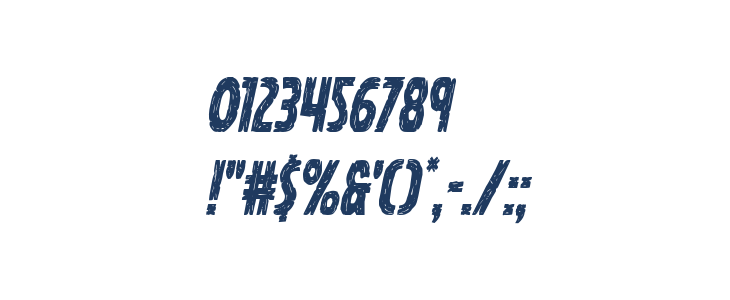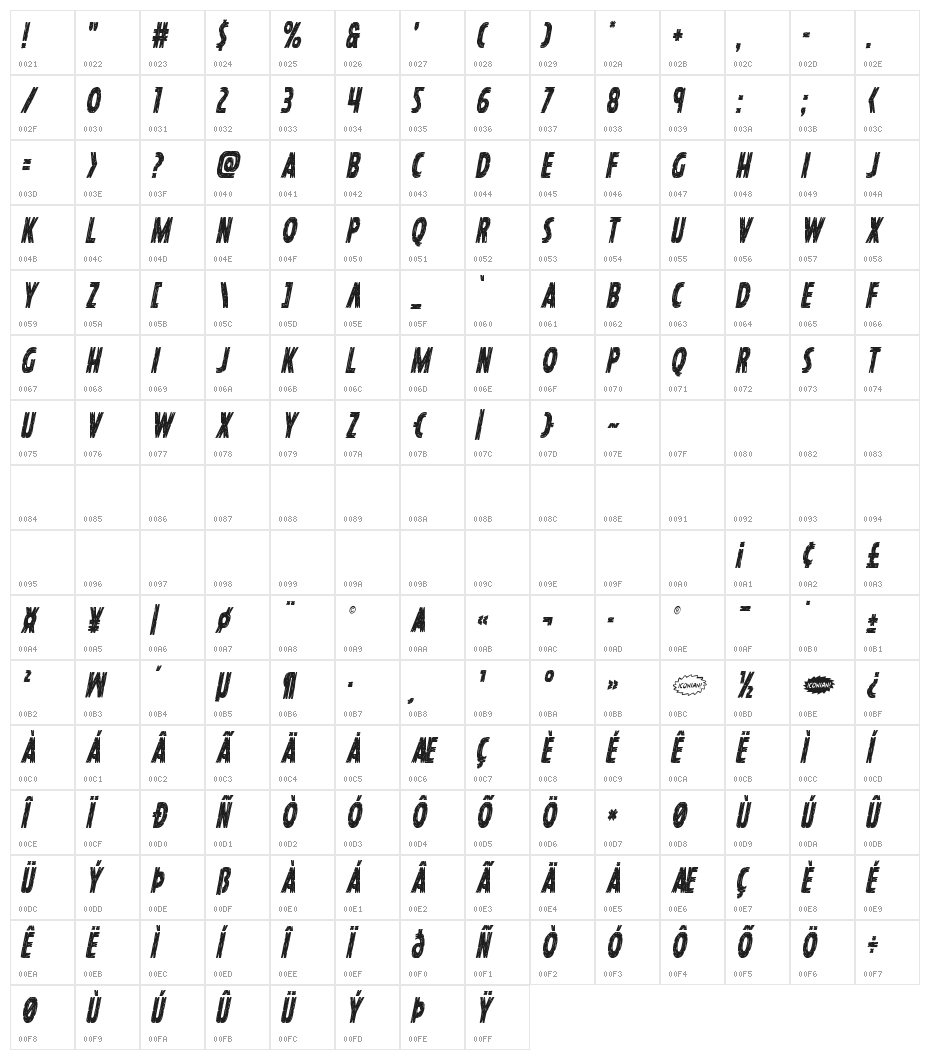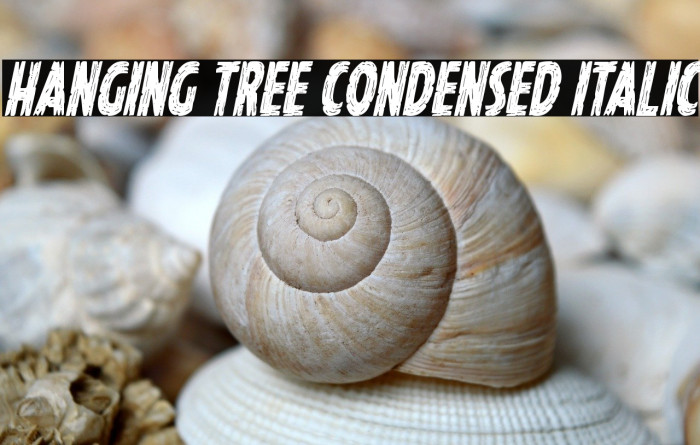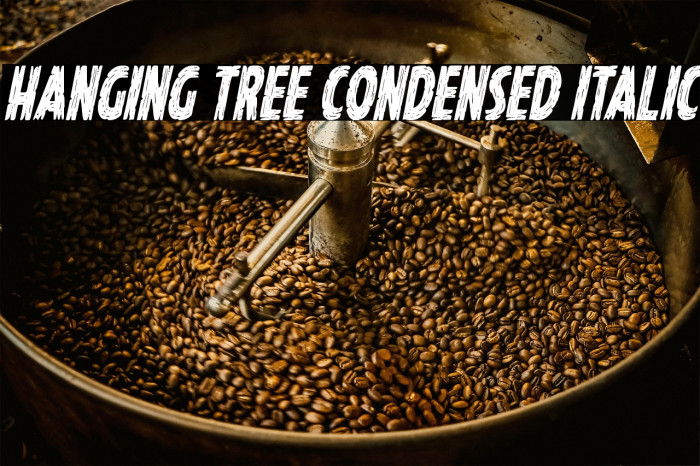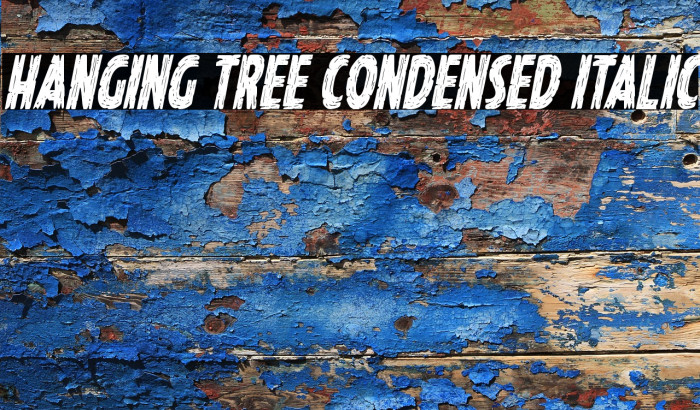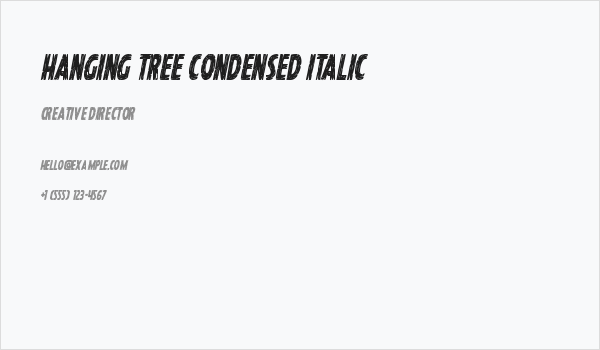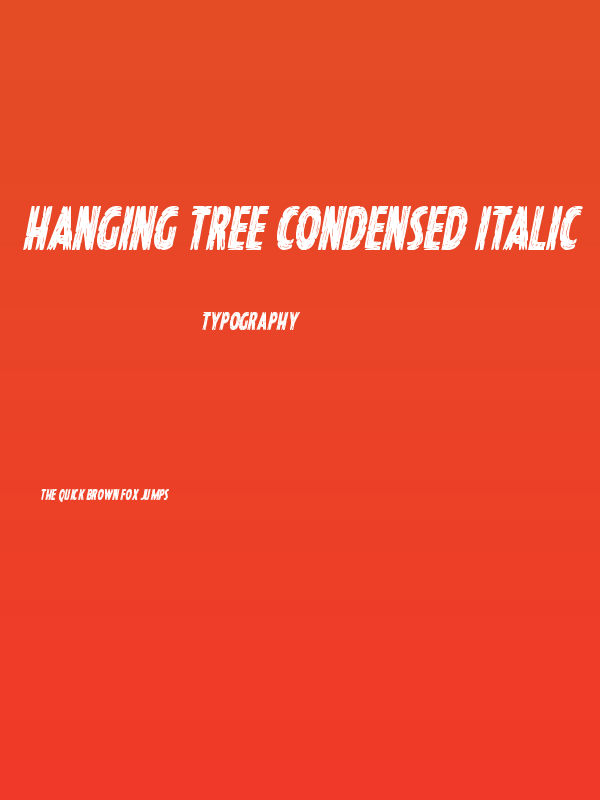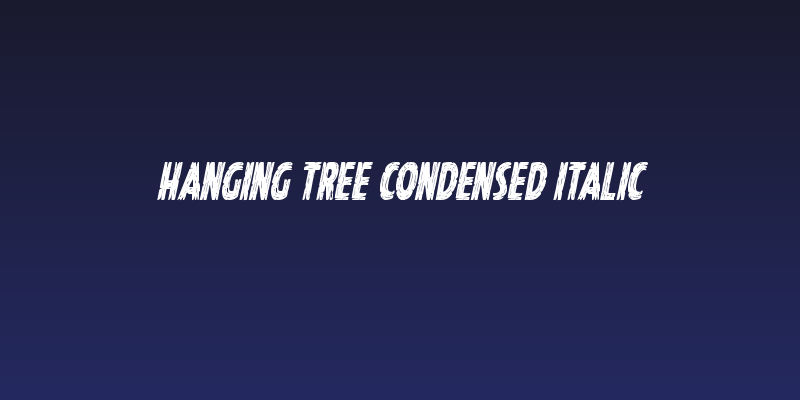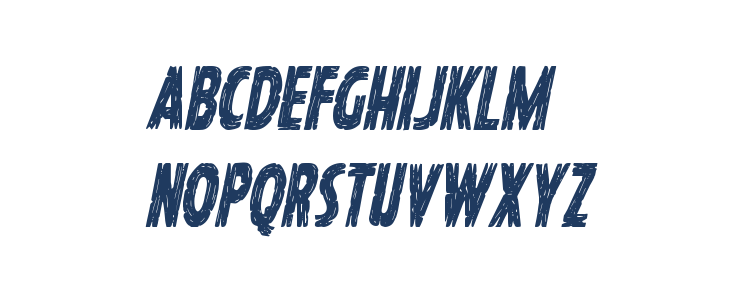
Hanging Tree Condensed Italic Font
Hanging Tree Condensed Italic Description
This font features a bold and dynamic style with a condensed and italicized form. The characters are heavily textured, giving a rough, hand-drawn appearance that adds a sense of urgency and energy. The strokes are uneven, creating a distressed look that is both modern and edgy. This font is particularly eye-catching, making it suitable for designs that require a strong visual impact. The uppercase and lowercase letters maintain a consistent style, while the numbers and special characters complement the overall aesthetic.
| Proposed Projects | Ideal for posters, album covers, event flyers, and any project needing a bold, impactful statement. |